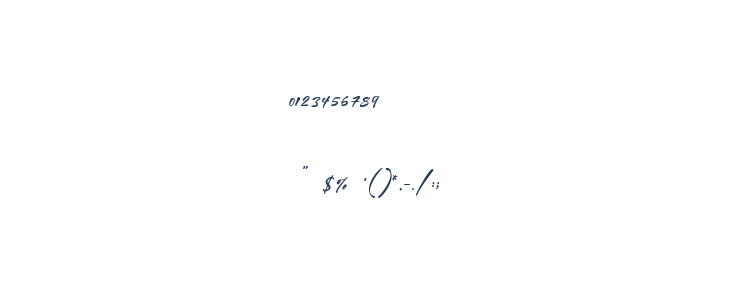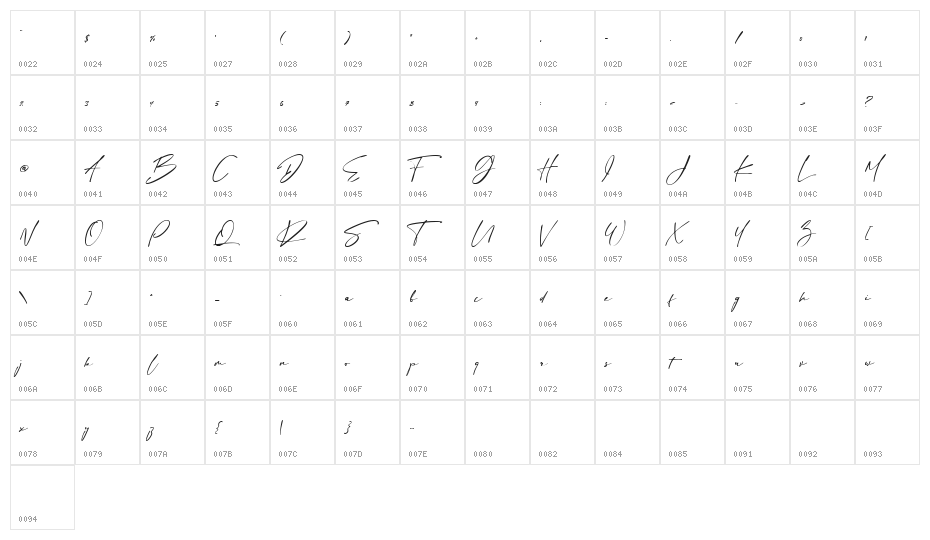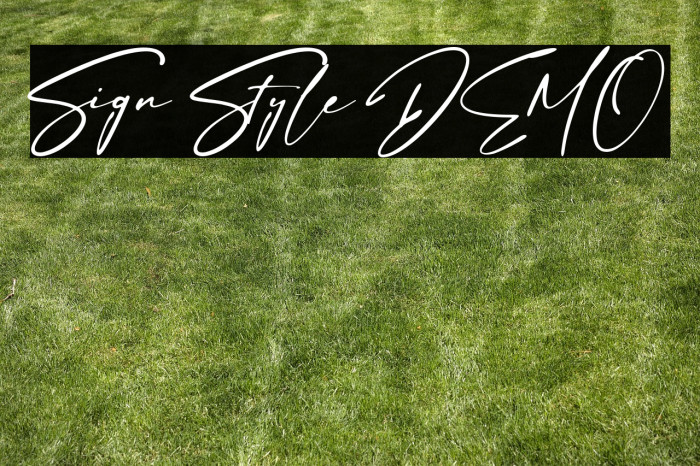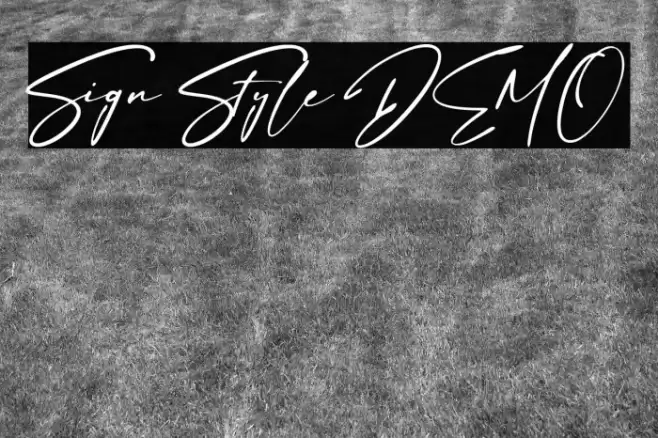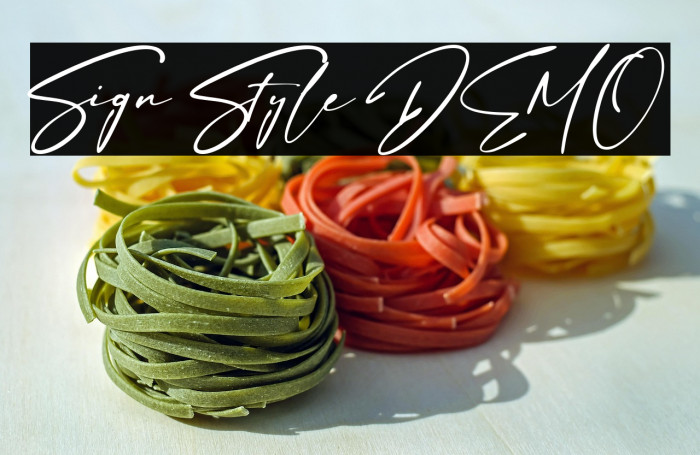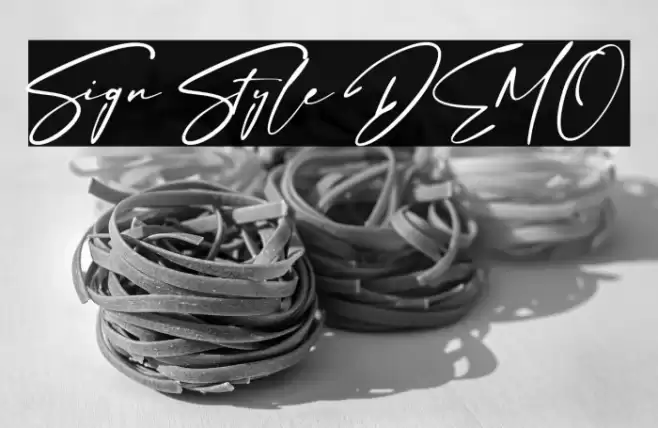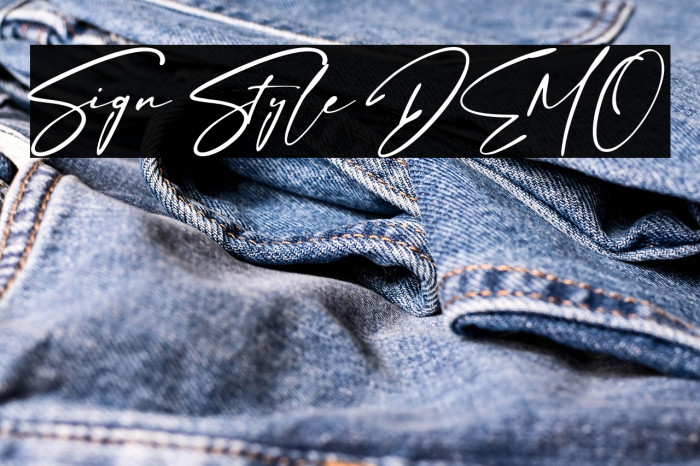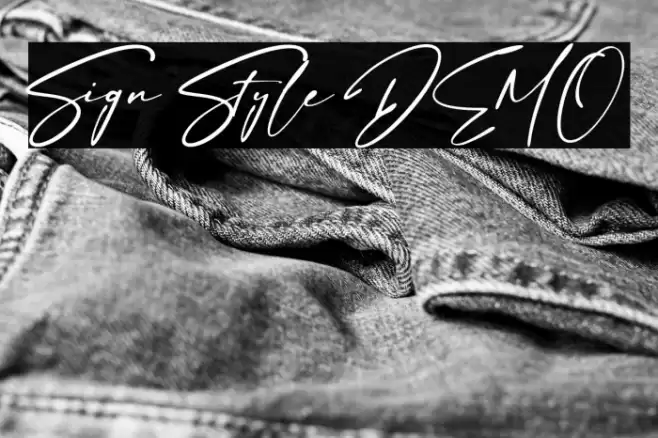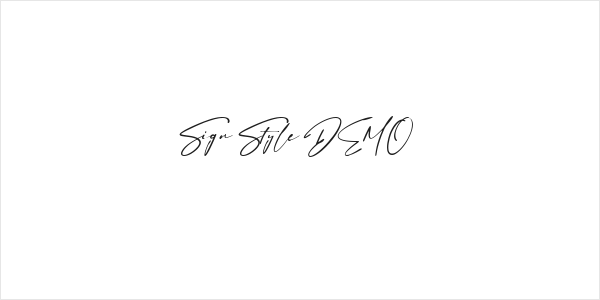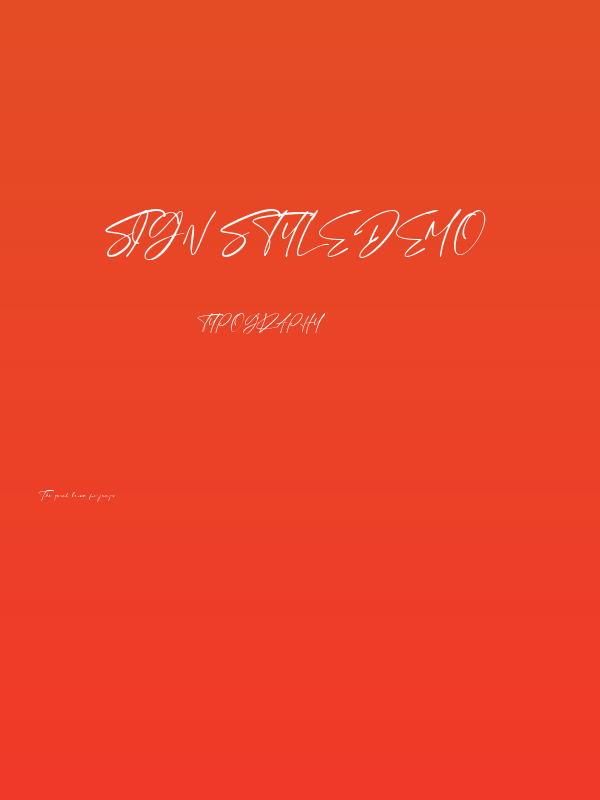
Sign Style DEMO Font
Sign Style DEMO Description
This font exudes a dynamic and expressive style, reminiscent of handwritten signatures. The letters are fluid and interconnected, with a natural flow that suggests a personal touch. The uppercase characters are bold and sweeping, while the lowercase letters maintain a consistent elegance. The numbers and special characters follow the same fluid style, adding to the overall cohesive look. This font is ideal for projects that require a personal, artistic touch, such as invitations, branding, or any design that seeks to convey a sense of individuality and creativity.
| Use Case | Logos, Headlines, Artistic designs |
| Proposed Projects | Ideal for invitations, branding, personal projects, and artistic designs. |